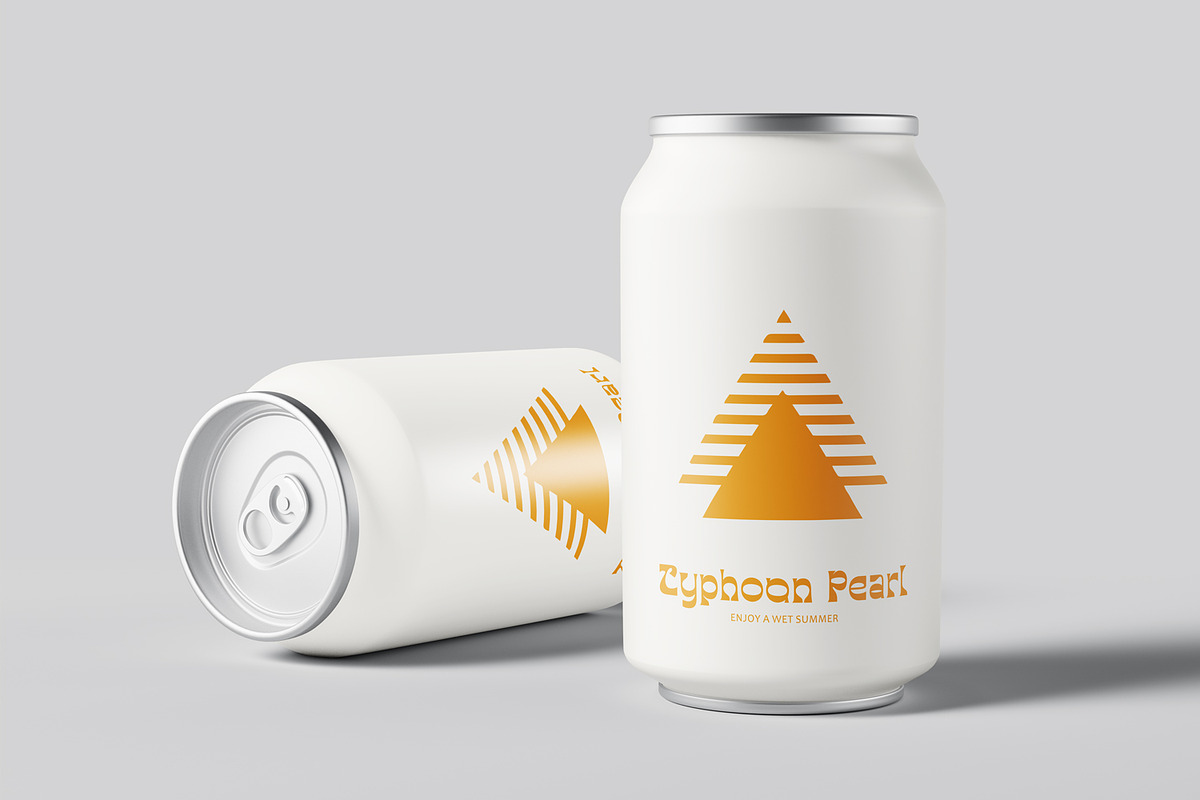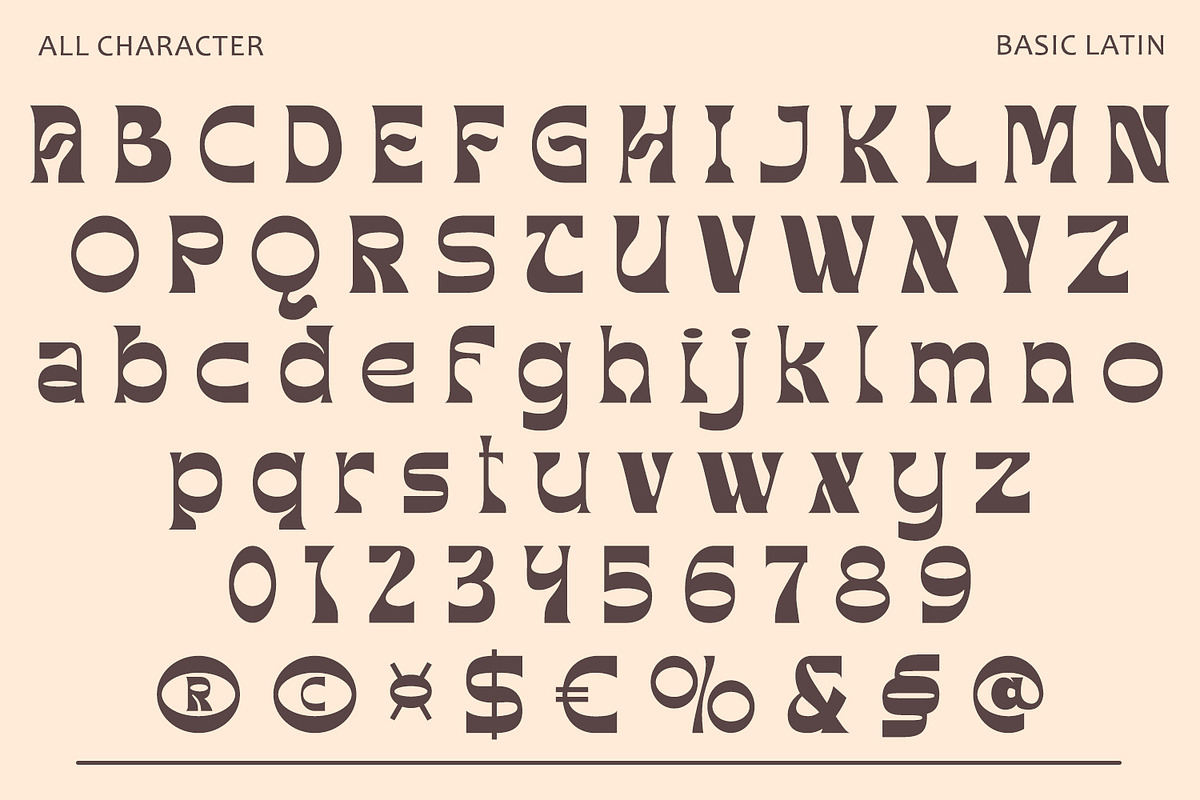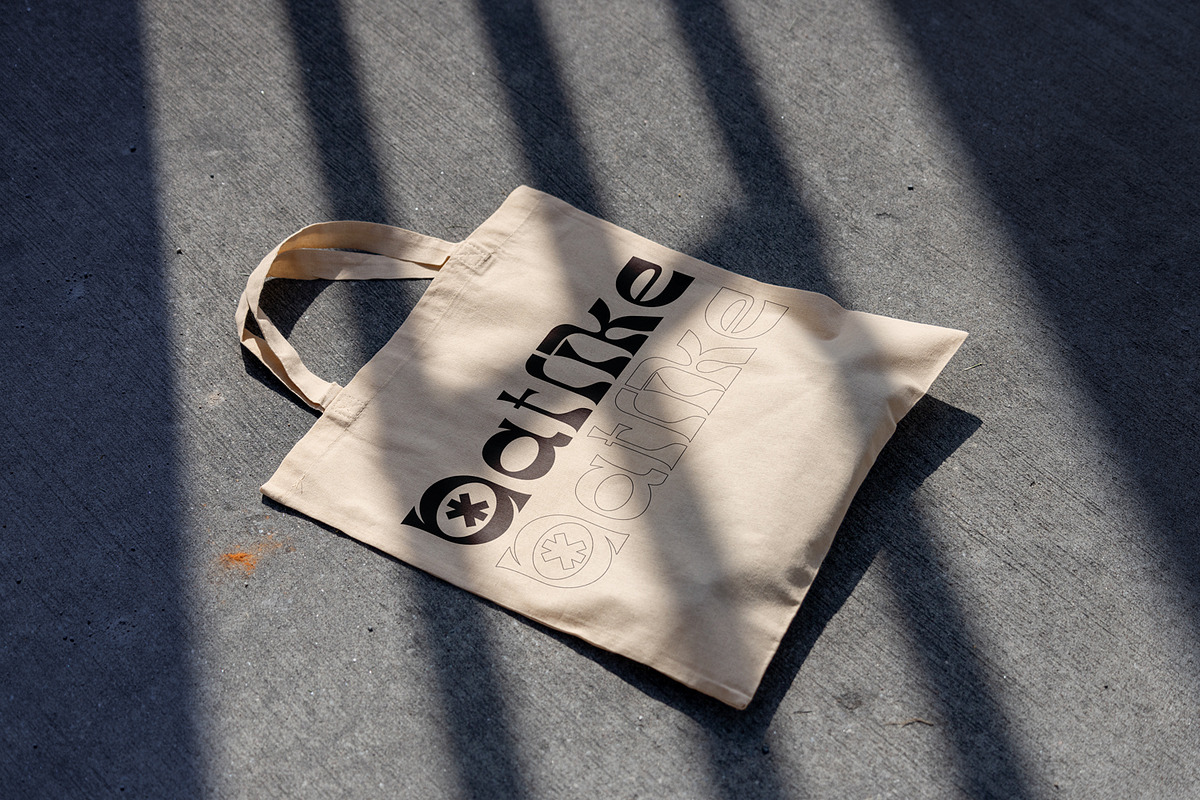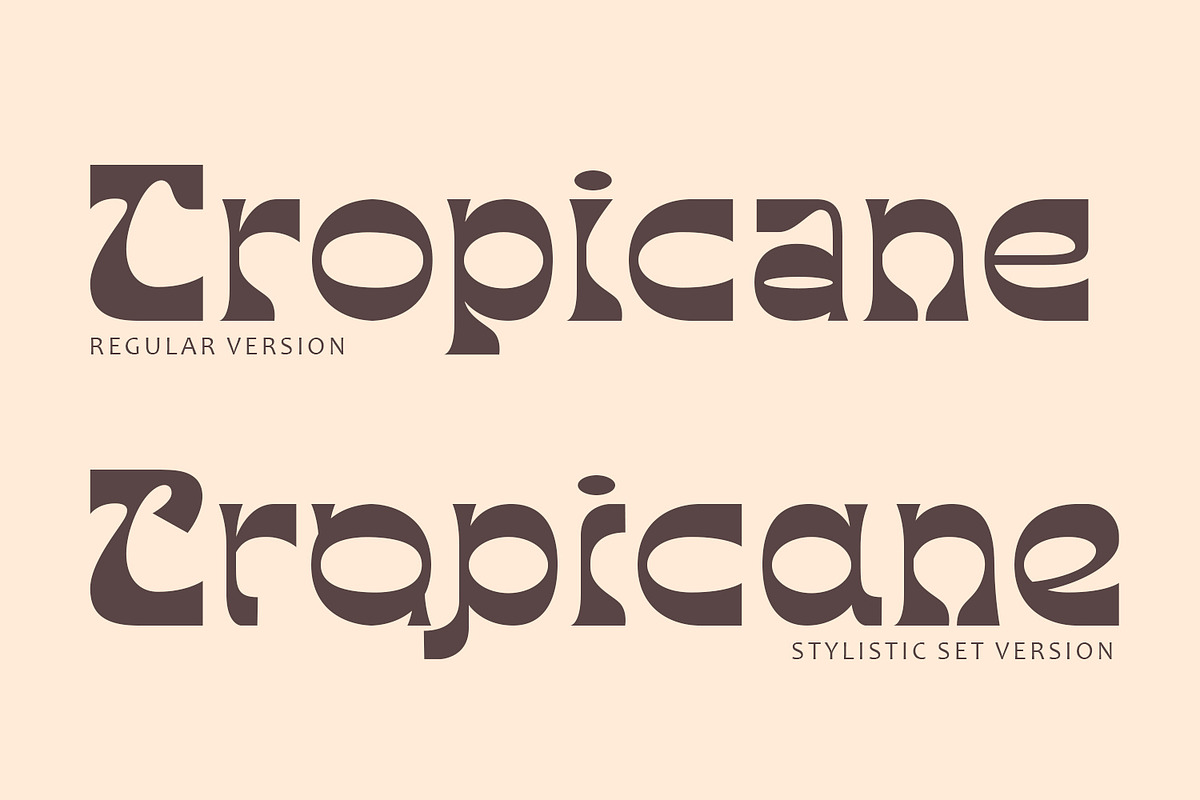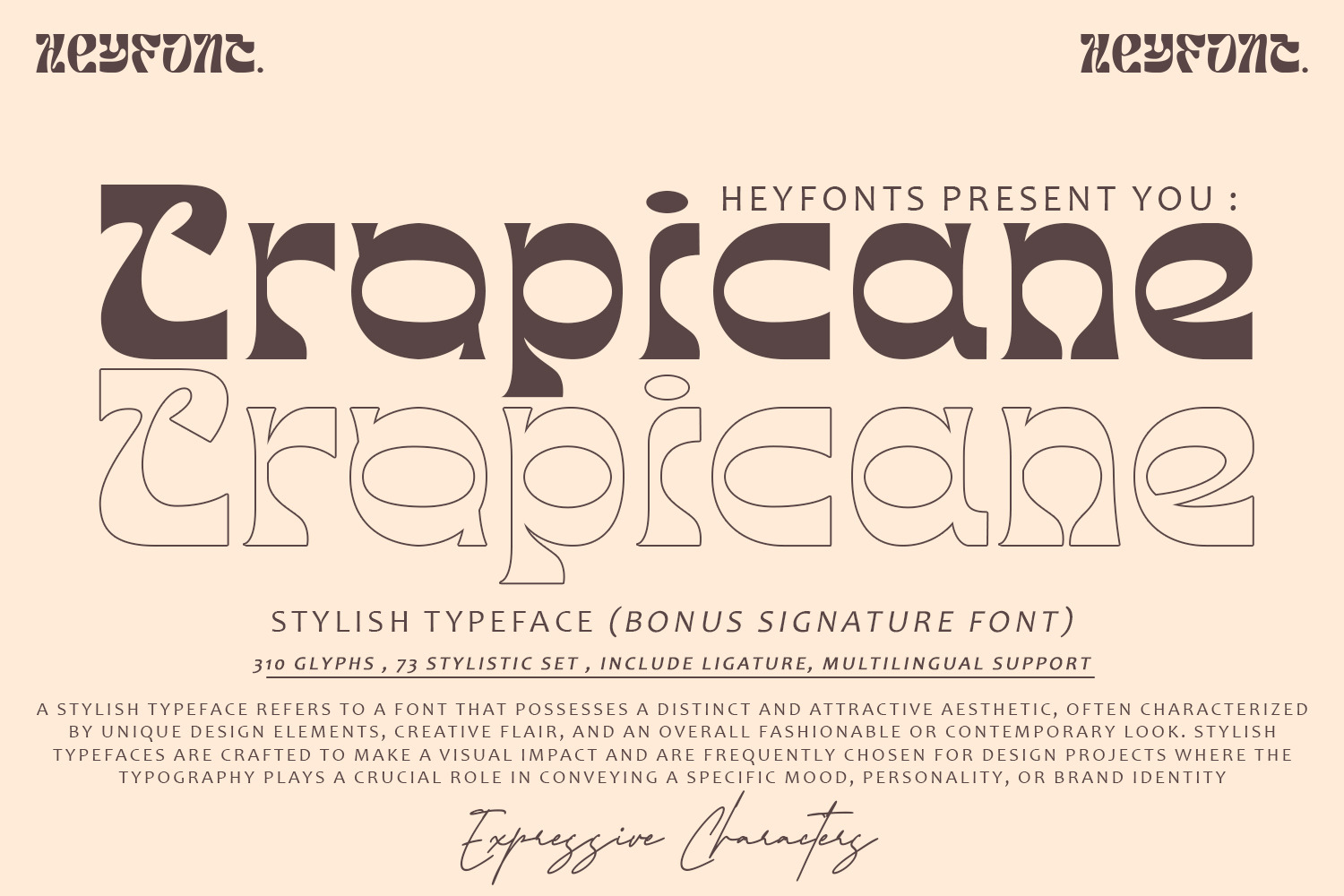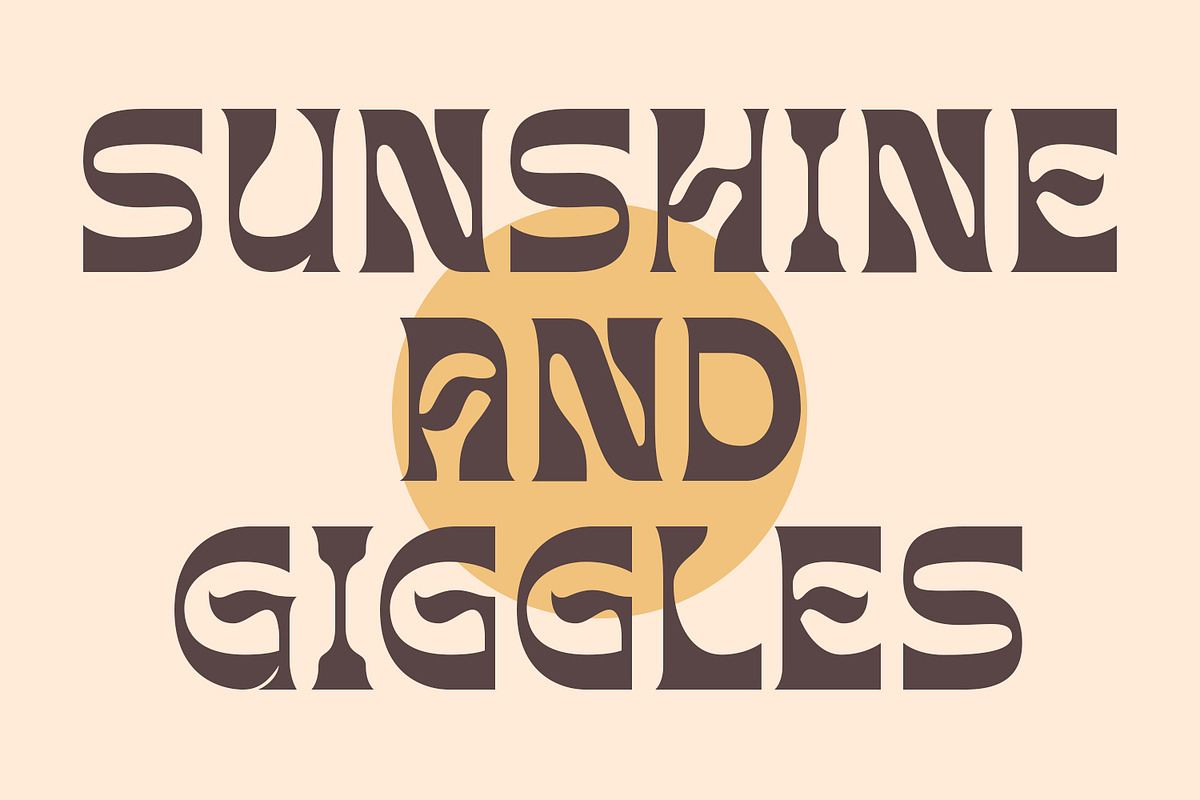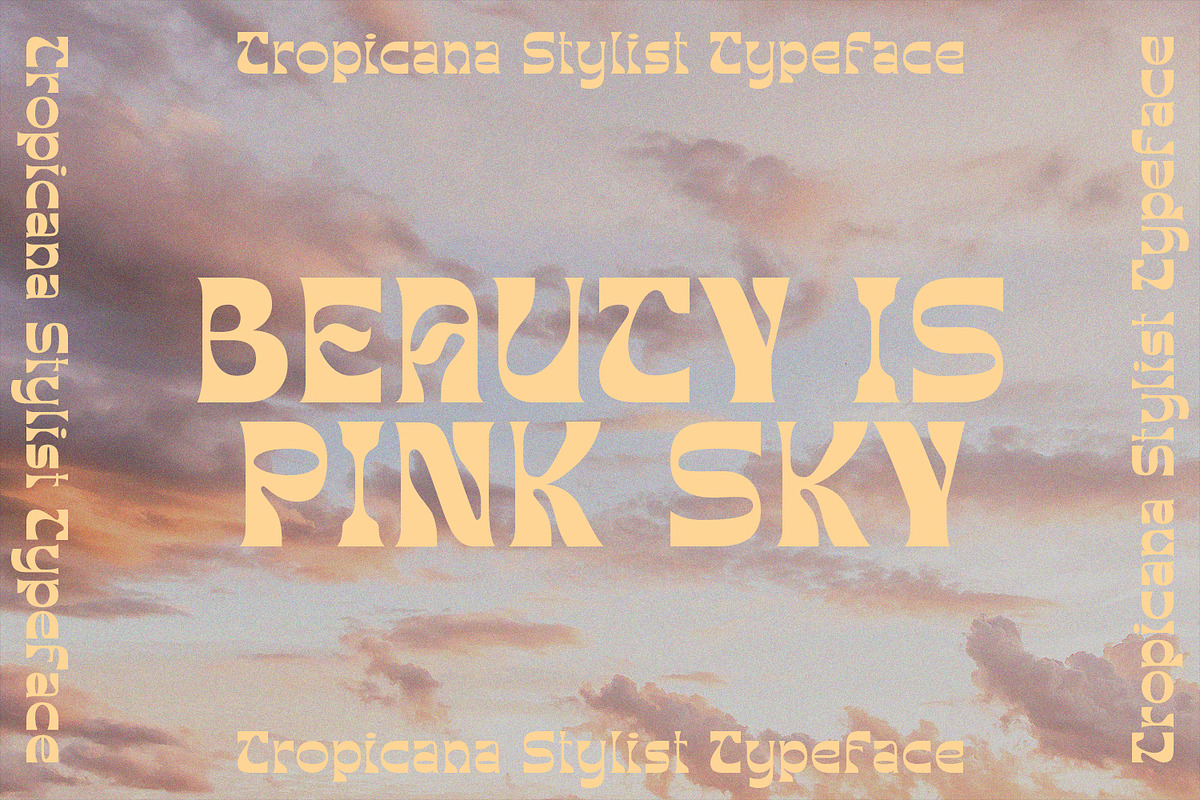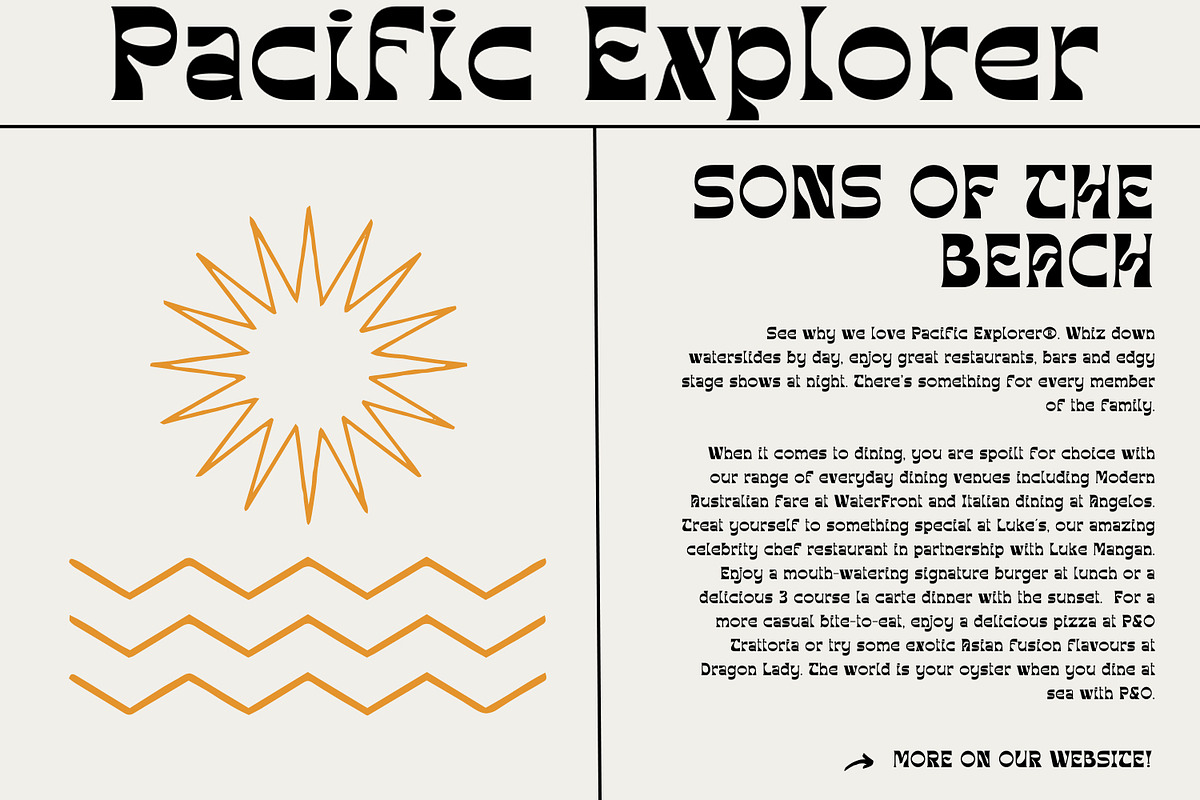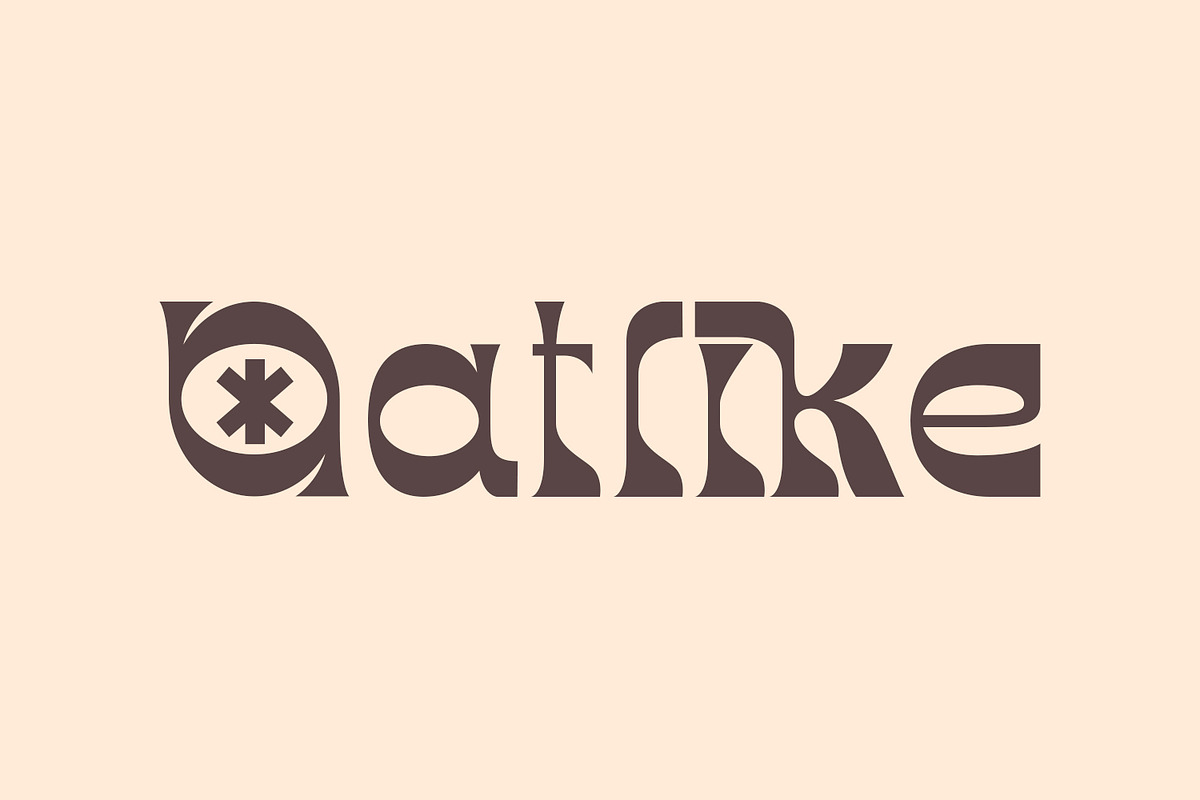
Tropicane - Stylish Typeface
Tropicane - Stylish Typeface refers to a font that possesses a distinct and attractive aesthetic, often characterized by unique design elements, creative flair, and an overall fashionable or contemporary look. Stylish typefaces are crafted to make a visual impact and are frequently chosen for design projects where the typography plays a crucial role in conveying a specific mood, personality, or brand identity. Here's an in-depth explanation of the characteristics and significance of a stylish typeface:
- Distinctive Design Elements: Stylish typefaces stand out due to their distinctive design features. This may include unique letterforms, creative ligatures, elegant serifs, or modern sans-serif shapes. The goal is to create a visually appealing and memorable set of characters.
- Contemporary Aesthetic: The term "stylish" implies a modern and fashionable design. Stylish typefaces often incorporate contemporary design trends, keeping up with current aesthetics to ensure that they remain visually relevant and appealing.
- Versatility: Stylish typefaces are often versatile, suitable for a variety of design applications. Whether used for branding, editorial design, websites, or marketing materials, these typefaces maintain their stylish appeal across different contexts.
- Attention to Detail: A stylish typeface is characterized by meticulous attention to detail. Designers pay close attention to the shapes, proportions, and spacing of individual characters to create a harmonious and visually pleasing overall appearance.
- Expressive Characters: Stylish typefaces can convey a sense of expressiveness and personality. This expressiveness can be achieved through unique letter shapes, playful elements, or the incorporation of design features that evoke a particular mood or emotion. Applicability to Branding: Brands often use stylish typefaces to create a distinctive visual identity. A stylish font can contribute to the overall brand image, helping to communicate the brand's values, tone, and style to the target audience.
- Innovative Typography: Stylish typefaces are often at the forefront of typographic innovation. They may push the boundaries of traditional letterforms, experimenting with new shapes, styles, and arrangements to create a sense of novelty and creativity.
- Readability and Functionality: Despite their emphasis on style, these typefaces generally maintain a balance between visual appeal and readability. Clear and legible letterforms are crucial, ensuring that the text remains accessible while still making a stylish statement.
- Adaptability to Trends: Stylish typefaces are often designed with an awareness of design trends. This adaptability allows them to stay relevant over time, making them a popular choice for designers who want their projects to reflect a contemporary and stylish aesthetic.
- Customization Options: Some stylish typefaces come with additional features, such as alternative characters, ligatures, or stylistic sets, offering designers the flexibility to customize the appearance of the text for specific design needs.
In summary, a stylish typeface is a carefully crafted font that goes beyond mere functionality, aiming to enhance the visual appeal and expressiveness of the text.